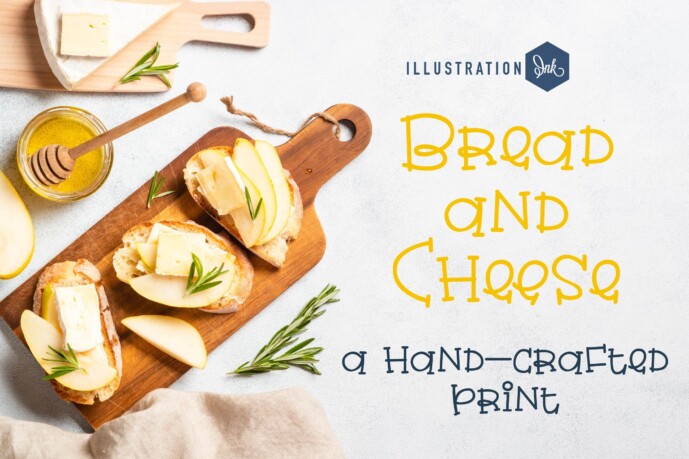
Bread and Cheese Font
Designer: Illustration Ink
Bread and Cheese Font
This hand-crafted font is a whimsical hand-written, print with slab serifs throughout.
A hand-crafted font is a font that is designed to look like it was written by hand. It is often used for invitations, greeting cards, and other items. Handwritten fonts can be either formal or informal, and they can be used for a variety of purposes.